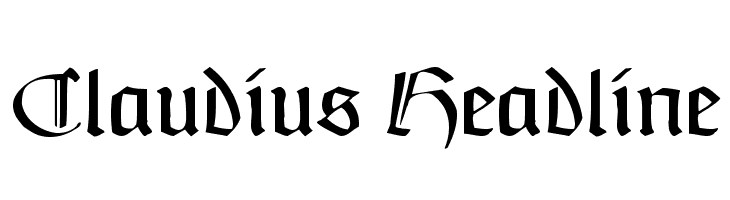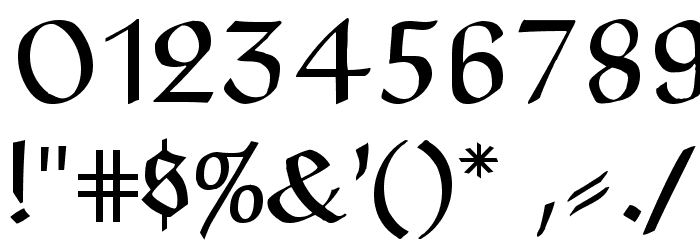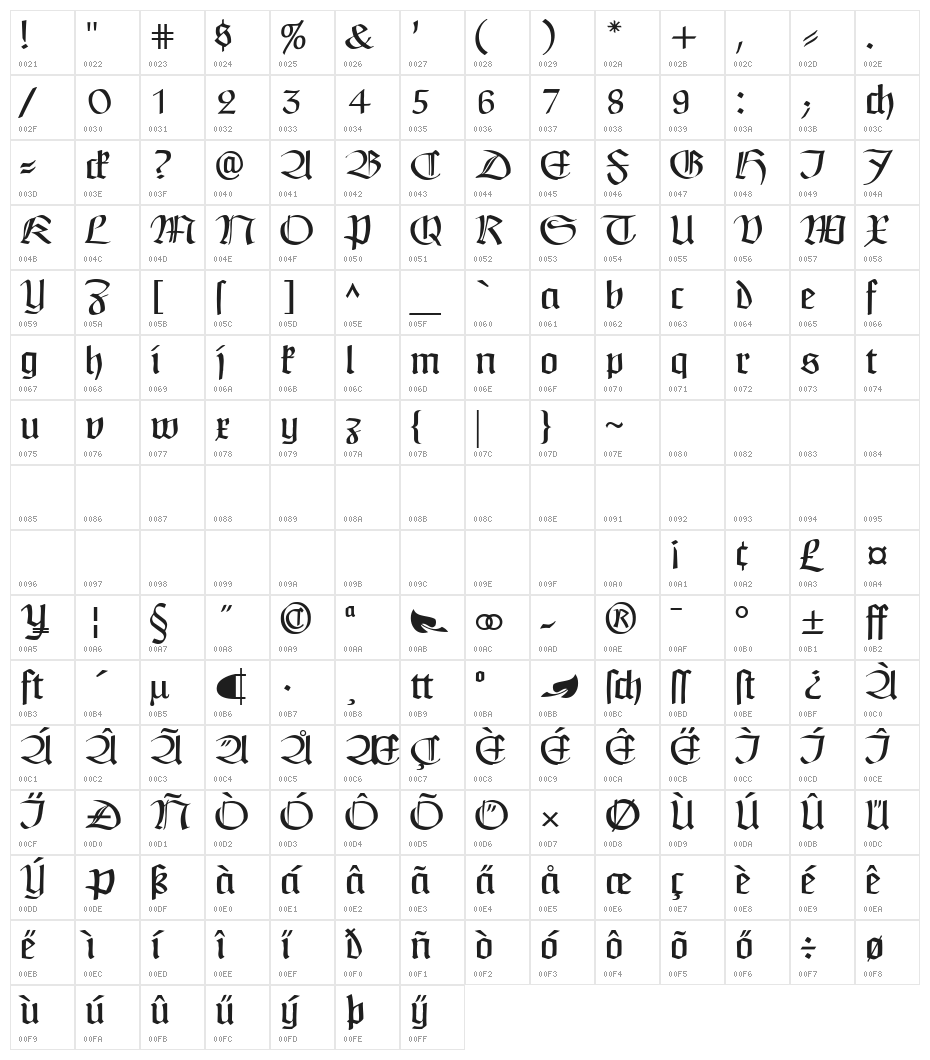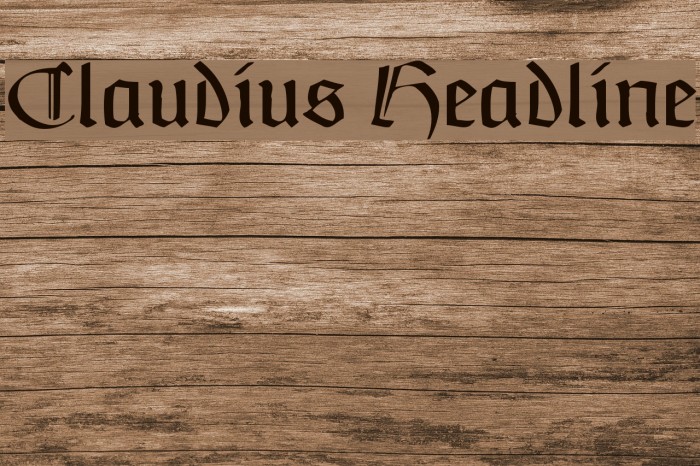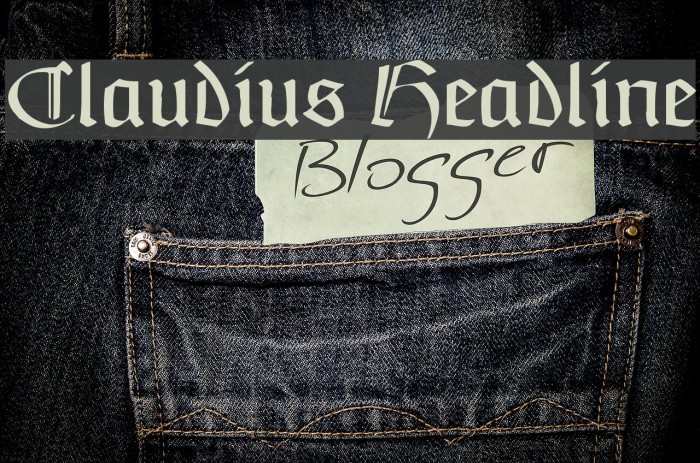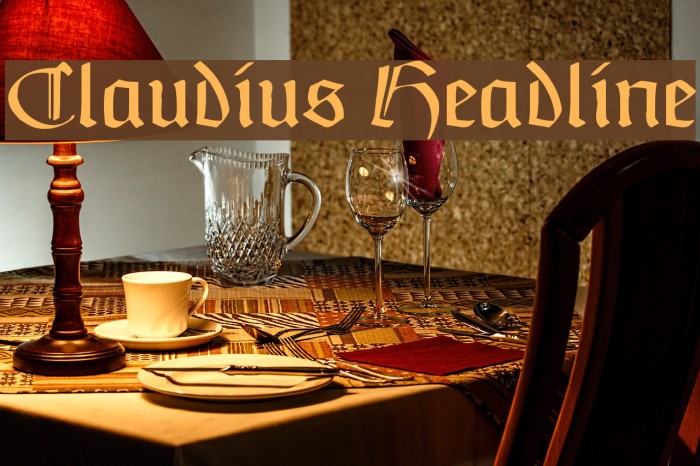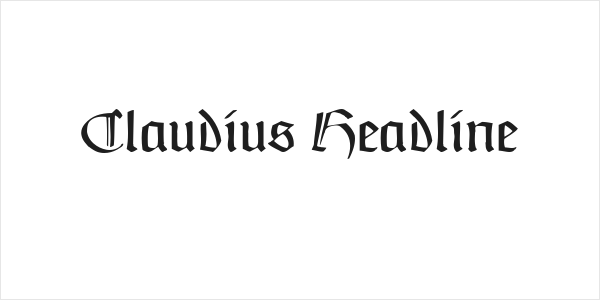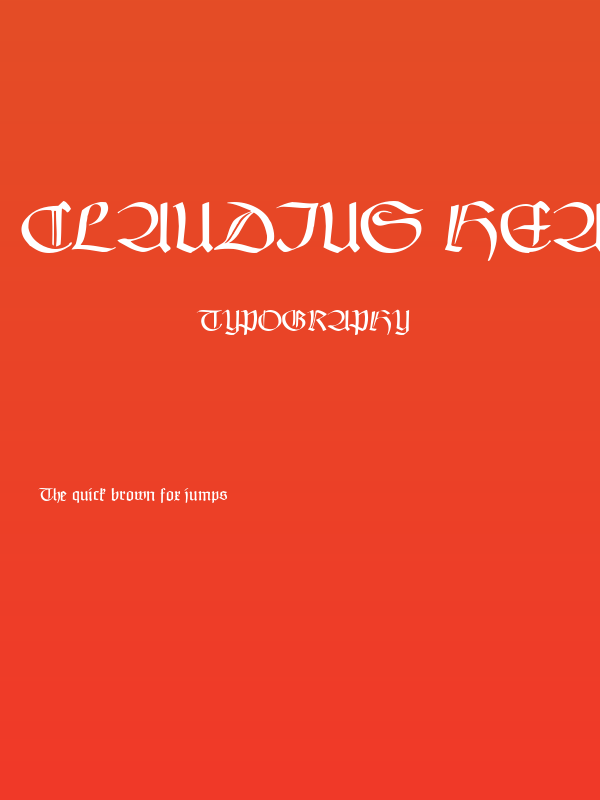
Claudius Headline Font
Claudius Headline Description
This font exhibits a classic blackletter style, characterized by its intricate and ornate letterforms. The uppercase letters feature sharp, angular strokes with pronounced serifs, creating a dramatic and historical appearance. The lowercase letters maintain a similar aesthetic, with a slightly more rounded approach, yet still retaining the sharpness typical of blackletter fonts. The numerals are bold and consistent with the overall style, providing a cohesive look. Special characters are designed with the same attention to detail, ensuring they blend seamlessly with the rest of the typeface. This font is ideal for projects that require a touch of elegance and tradition, such as certificates, invitations, or historical documents.